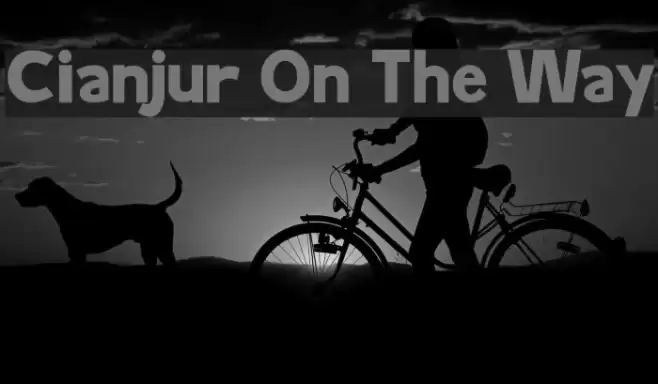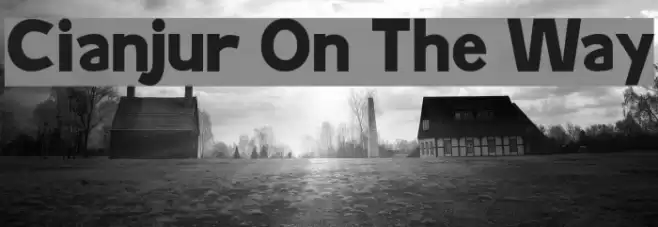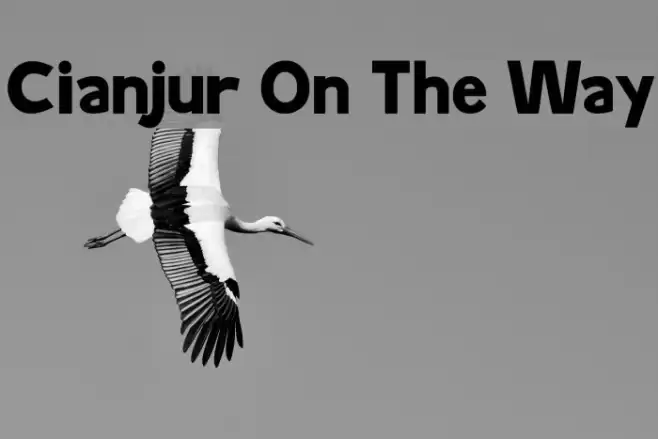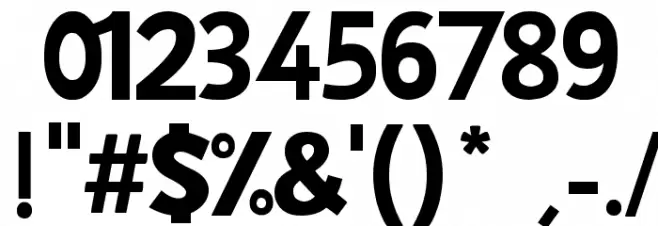
Cianjur On The Way Font
Cianjur On The Way Description
This font features a bold and modern design with clean, rounded edges that give it a friendly and approachable appearance. The characters are well-proportioned, with a consistent stroke width that maintains a uniform look across both uppercase and lowercase letters. The numerals are clear and easy to read, making them suitable for a variety of applications. Special characters are included, providing versatility for different contexts. Overall, the font's simplicity and readability make it ideal for both digital and print media.
A bold, modern font with clean, rounded edges and consistent stroke width from Uncategorized fonts.
- Proposed Projects: Ideal for branding, advertising, headlines, and digital content where a modern and approachable look is desired.
- Use Case: Headlines, Logos, Branding